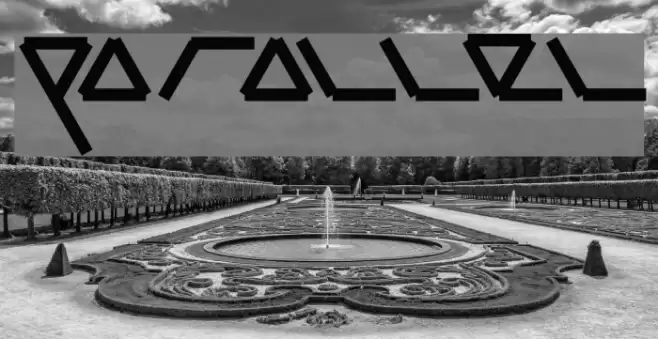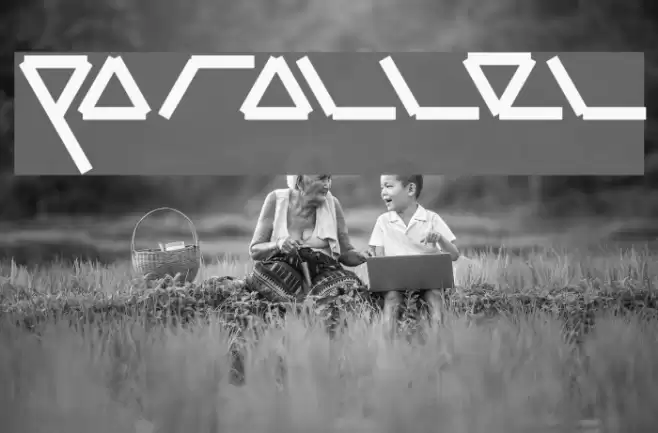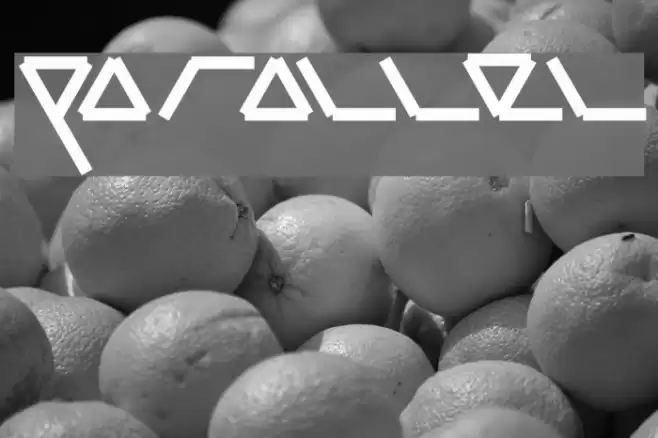
parallel Font
parallel Description
This font features a geometric and angular design, characterized by sharp edges and a futuristic aesthetic. The letters are constructed with bold, straight lines and acute angles, giving it a distinct, modern appearance. The uppercase and lowercase letters share a similar structure, maintaining consistency throughout the typeface. The numbers and special characters follow the same angular style, ensuring uniformity across all characters. This font's unique design makes it stand out, ideal for projects that require a contemporary and edgy look.
A geometric, angular font with a futuristic and bold design from Uncategorized fonts.
- Proposed Projects: Ideal for sci-fi themed projects, modern branding, digital artwork, and technology-related designs.